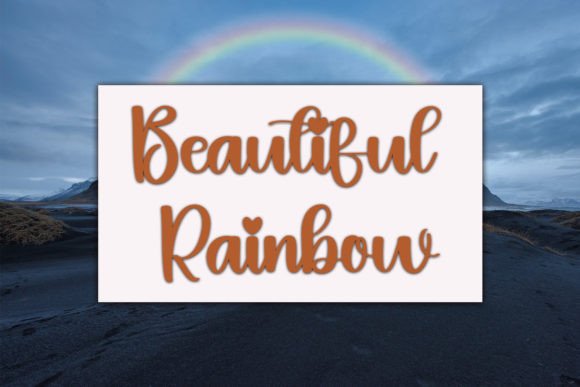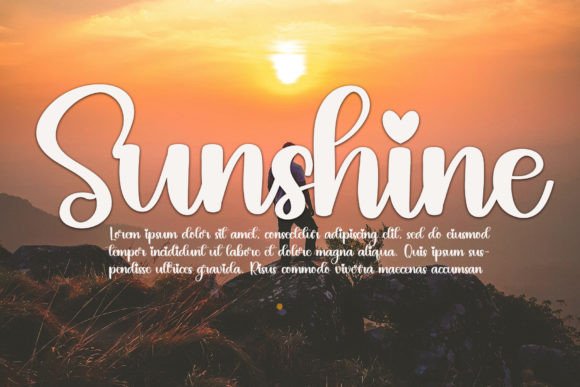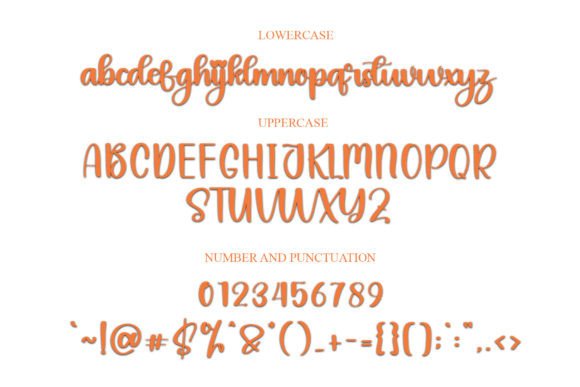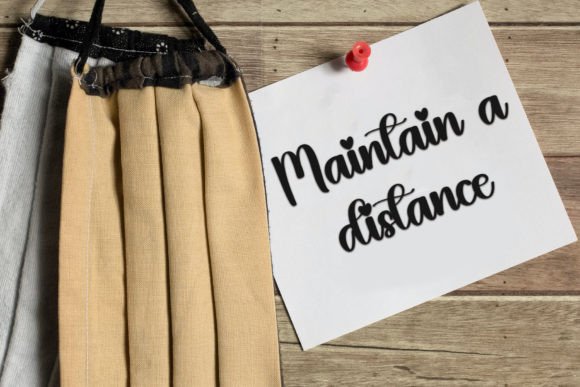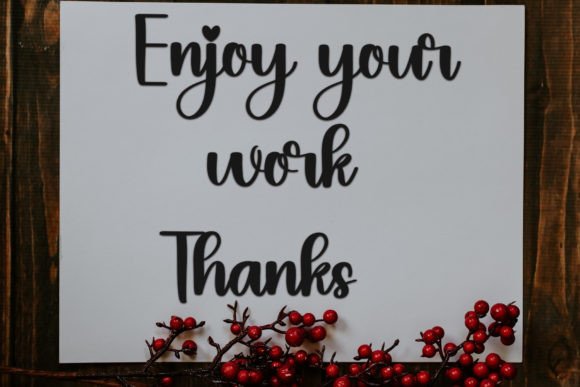
Introduction to Higlight Font
As a designer, have you ever found yourself stuck in a creative rut, searching for the perfect font to give your project that extra oomph? It’s a feeling we’ve all been there, and it’s where the magic of discovering a new design resource comes in. For me, it was the moment I stumbled upon the Higlight Font – a font that instantly brightened up my workspace and inspired a wave of creativity.
The Higlight Font is more than just a pretty face; its smooth and flowing letterforms create a sense of movement and dynamism, making it perfect for designs that need a lively and cheerful touch. With its legible and clean style, this font adds a charming personal feel to any project, from branding to social media graphics and beyond.
- High-quality design resource for creative projects, perfect for logos, branding, and marketing materials.
- Unique, eye-catching design makes it perfect for use in headings, titles, and other prominent text elements.
Honest Review: Higlight Font
I recently came across the Higlight Font, and I must say it’s a great addition to any designer’s resource library. The free download offers a high quality, versatile font that’s perfect for creative projects.
What works well: ✨ The transparent background option makes it easy to use with any design element, and the font itself is clean and modern. It’s perfect for headings, titles, and even body text. The font’s versatility makes it a great choice for a variety of design styles.
- High quality and crisp design
- Clean and modern aesthetic
- Perfect for headings, titles, and body text
However, there are a few limitations: ⚠️ The font’s character set is limited, and it may not be suitable for complex designs that require a wide range of characters. Additionally, some users may find the font’s modern aesthetic to be too minimalist.
Overall, I’m impressed with the Higlight Font. It’s a solid choice for designers looking for a high-quality, versatile font for their creative projects. While it may have some limitations, it’s a great resource to have in your design library.
To get the most out of Higlight Font, experiment with different font sizes, colors, and styles to create a visually appealing design. You can also combine Higlight Font with other design elements, such as images and shapes, to add depth and interest to your project.
Higlight Font is suitable for a variety of creative projects, including graphic design, digital art, and print materials. You can use it to create eye-catching headlines, titles, and other text elements that add a touch of sophistication and elegance to your design.